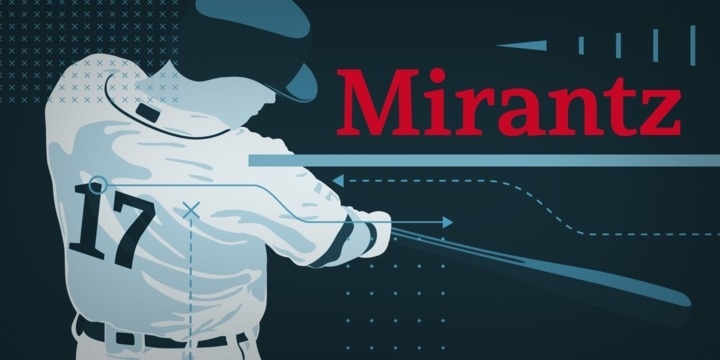
Mirantz Font
Mirantz Font is perfect for contemporary fashion brands, modern architecture firms, sleek product packaging, innovative tech startups, minimalist magazine layouts, sophisticated web design, luxury cosmetic branding, cutting-edge art galleries, premium lifestyle publications, and progressive corporate identities.
What makes Mirantz Font so exciting is its remarkable ability to embody contemporary elegance and forward-thinking sophistication through meticulously crafted letterforms that seem to anticipate the future of design while honoring timeless principles of beauty. This striking typeface captures the essence of modern refinement and progressive thinking with characters that radiate confidence, innovation, and sophisticated taste. The font's sleek design elements perfectly balance minimalist aesthetics with maximum visual impact, creating a versatile tool that communicates cutting-edge style, professional excellence, and contemporary luxury, making it essential for brands targeting sophisticated modern audiences.
Mirantz Font comes in multiple font families including Regular, Bold, Light, Italic, Bold Italic, Ultra Light, Medium, and Display variations. Each family member maintains the core contemporary characteristics while offering different sophistication levels and stylistic approaches to suit various modern design requirements.
The Mirantz Font Free Download offers designers an incredible opportunity to incorporate cutting-edge typography into projects that demand contemporary sophistication and visual innovation. This remarkable typeface distinguishes itself through its unique ability to communicate themes of modern luxury, progressive thinking, and sophisticated minimalism. Whether you're developing fashion brand identities, creating tech company materials, or designing contemporary art publications, this font ensures your message conveys the perfect blend of elegance and innovation that modern audiences expect.
The precision engineering in Mirantz Font makes it particularly suitable for luxury brands and progressive companies where conveying contemporary sophistication and forward-thinking values is crucial for market positioning. Its refined letterforms maintain excellent readability across all applications while preserving the modern elegance that appeals to discerning consumers seeking cutting-edge experiences and premium quality.
Contemporary design professionals recognize how Mirantz Font transforms ordinary text into sophisticated statements of modern luxury and progressive vision. The typeface's comprehensive character set includes international language support and advanced typographic features that enhance the overall contemporary atmosphere of any design project.
For creative professionals serving fashion houses, tech innovators, and luxury lifestyle brands, Mirantz Font serves as the perfect foundation for establishing memorable visual identities that capture the essential qualities of contemporary elegance, innovative thinking, and sophisticated style that define successful modern brands in competitive global markets.